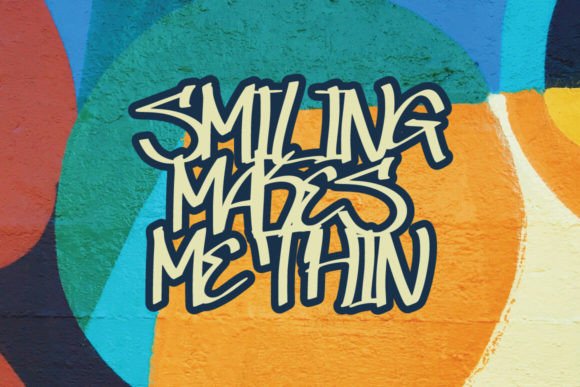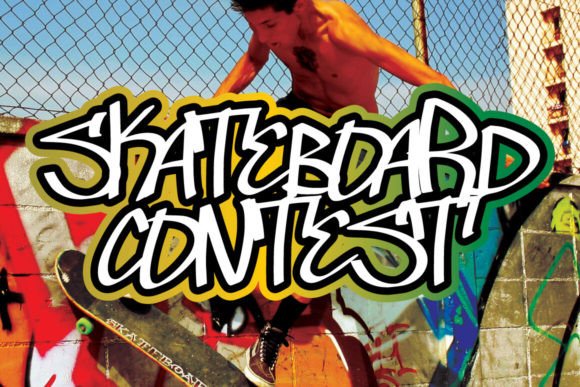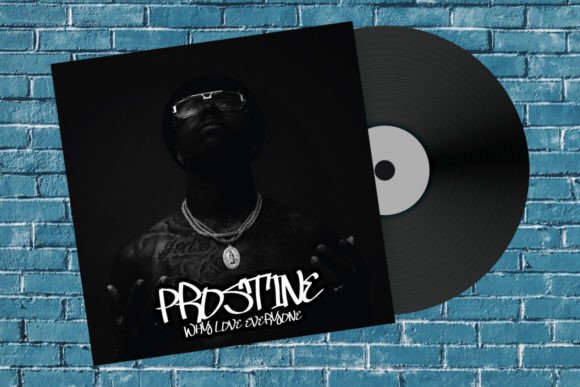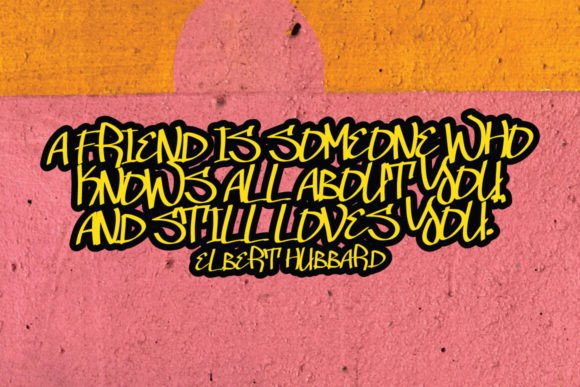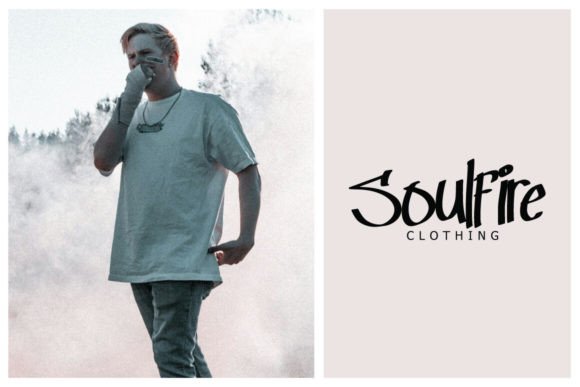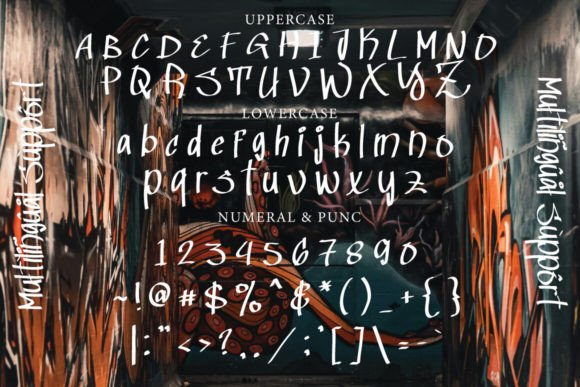
Introduction to Radies Font
Radies Graffiti Font is a display font inspired by typical street art calligraphy style or graffiti tag, suitable for your design related to it.
Also suitable for movies, documentaries, films, logos, posters, games, book covers, headlines, titles, and many more projects Add this font to your creative ideas and notice how it will make them stand out.
Radies Font offers exceptional quality and versatility, making it a valuable addition to your design toolkit. Whether you’re creating for personal projects or commercial use, Radies Font delivers professional results.